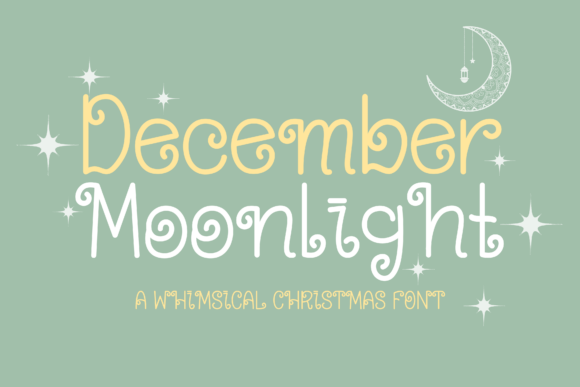
December Moonlight Font: A Whimsical Handwritten Christmas Font
The holiday season is upon us, and with it comes the magic of twinkling stars, winter nights, and cozy warmth. What better way to capture this enchantment than with a font that embodies the very essence of Christmas? Introducing December Moonlight, a whimsical handwritten Christmas font that will add a touch of wonder to your holiday creations.
What is December Moonlight Font?
December Moonlight is a carefully crafted handwritten font that exudes the cozy, festive feel of the holiday season. With playful curls and soft curves, every letter is designed to evoke a sense of warmth and holiday magic. This charming font is perfect for a wide range of applications, from holiday cards and gift tags to invitations, stickers, quotes, and winter-themed designs.
Key Features of December Moonlight Font
- Whimsical Handwritten Style: Each letter is carefully crafted with a whimsical, handwritten touch, making it perfect for adding a personal and festive feel to your designs.
- Playful Curls and Soft Curves: The font features playful curls and soft curves that give it a cozy and inviting appearance, ideal for capturing the magic of the holiday season.
- Festive and Full of Holiday Wonder: Every letter is designed to evoke a sense of holiday cheer, making it perfect for a wide range of festive applications.
- Perfect for Holiday Projects: From holiday cards and gift tags to invitations and winter-themed designs, December Moonlight is the ideal font for adding a touch of Christmas magic to your creations.
10 Creative Ways to Use December Moonlight Font
With its whimsical and festive design, December Moonlight font can be used in a wide range of creative projects. Here are 10 ideas to get you started:
- Holiday Cards: Add a touch of Christmas magic to your holiday cards with December Moonlight font. Perfect for sending warm wishes to friends and family.
- Gift Tags: Create personalized gift tags with December Moonlight font and add a festive touch to your presents.
- Invitations: Invite friends and family to your holiday parties with custom invitations featuring December Moonlight font.
- Stickers: Design festive stickers with December Moonlight font and add a touch of holiday cheer to your gifts, decorations, and more.
- Quotes: Create inspiring holiday quotes with December Moonlight font and share them on social media or use them in your designs.
- Winter-Themed Designs: Add a touch of winter wonder to your designs with December Moonlight font. Perfect for creating festive posters, flyers, and brochures.
- Social Media Graphics: Create festive social media graphics with December Moonlight font and add a touch of holiday cheer to your online presence.
- Packaging: Add a touch of Christmas magic to your product packaging with December Moonlight font. Perfect for creating festive and eye-catching packaging.
- Signs: Create festive signs with December Moonlight font and add a touch of holiday cheer to your home or business.
- Digital Products: Use December Moonlight font to create festive digital products, such as holiday planners, journals, and printables.
Tips and Tricks for Using December Moonlight Font
To get the most out of December Moonlight font, here are some tips and tricks to keep in mind:
- Use it with Winter-Themed Images: Pair December Moonlight font with winter-themed images, such as snowflakes, pinecones, and holly, to create a festive and cohesive design.
- Experiment with Colors: Try pairing December Moonlight font with different colors, such as red, green, and gold, to create a unique and festive look.
- Add Texture and Patterns: Add texture and patterns to your design with December Moonlight font to create a more dynamic and interesting look.
- Use it in Combination with Other Fonts: Combine December Moonlight font with other fonts to create a unique and visually appealing design.
December Moonlight font is a whimsical handwritten Christmas font that captures the magic of winter nights and twinkling stars. With its playful curls and soft curves, every letter feels cozy, festive, and full of holiday wonder. Perfect for holiday cards, gift tags, invitations, stickers, quotes, and winter-themed designs, this charming font brings warmth and sparkle to every project. Download December Moonlight font today and add a touch of Christmas magic to your creations!